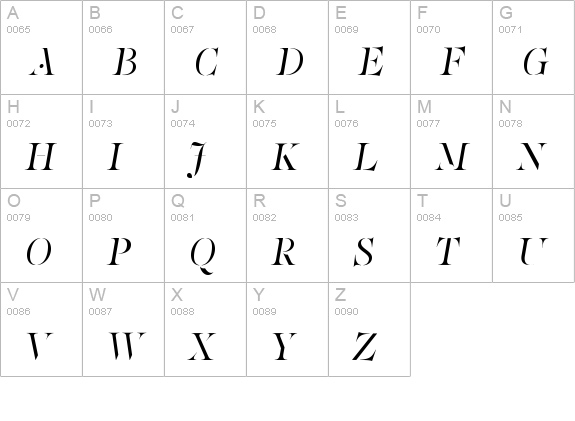
PFRegalStencilPro-Italic is a distinctive, italic variant in the PFRegalStencilPro typeface family \xE2\x80\x94 well suited to design and typography projects.
PFRegalStencilPro-Italic is an elegant and sophisticated font that exudes a sense of refined luxury and timeless charm. With its delicate yet bold strokes and distinctive stencil design, this font is perfect for adding a touch of class to any project. The italic style adds a touch of flair and sophistication, making it ideal for use in fashion magazines, high-end branding, and upscale invitations. Best of all, PFRegalStencilPro-Italic is available for free download at FontsMarket.com. This means you can effortlessly elevate your designs without breaking the bank. Don't miss out on the opportunity to add a touch of elegance to your projects with this stunning font. Download PFRegalStencilPro-Italic today and make a statement with your typography.